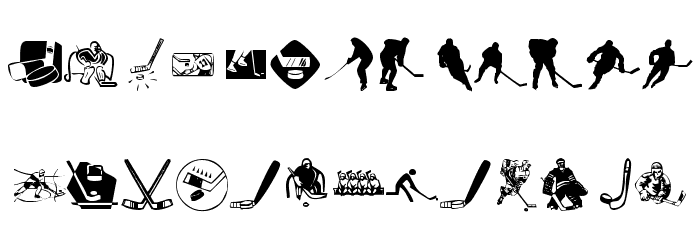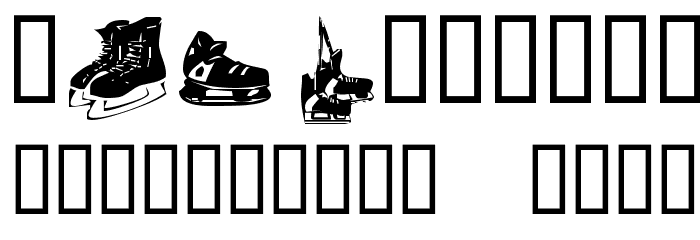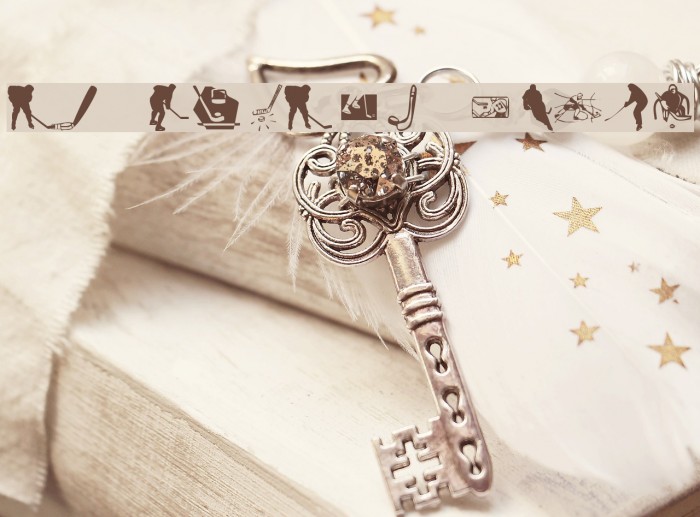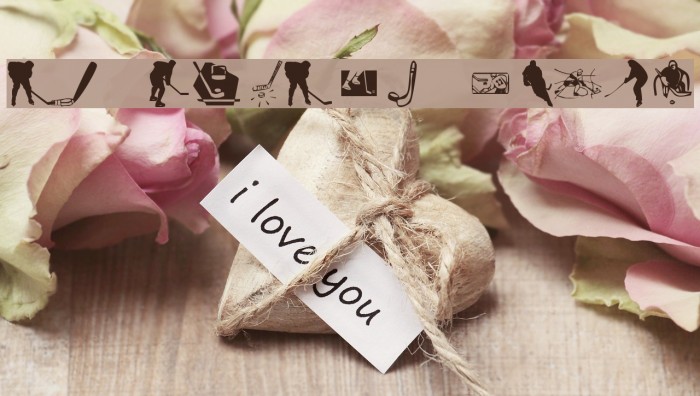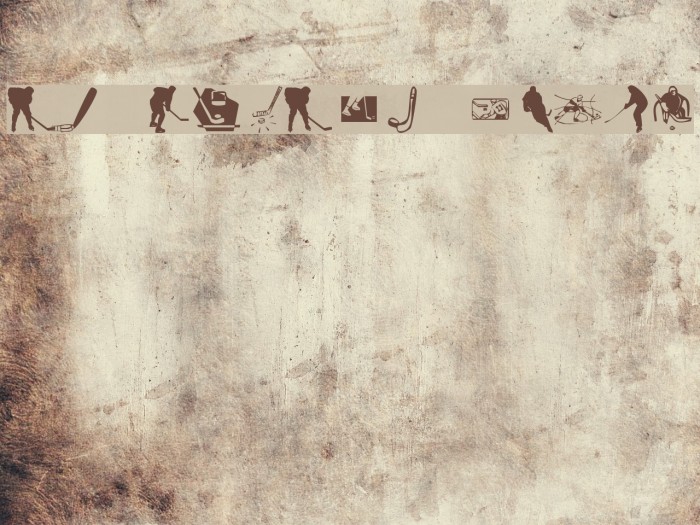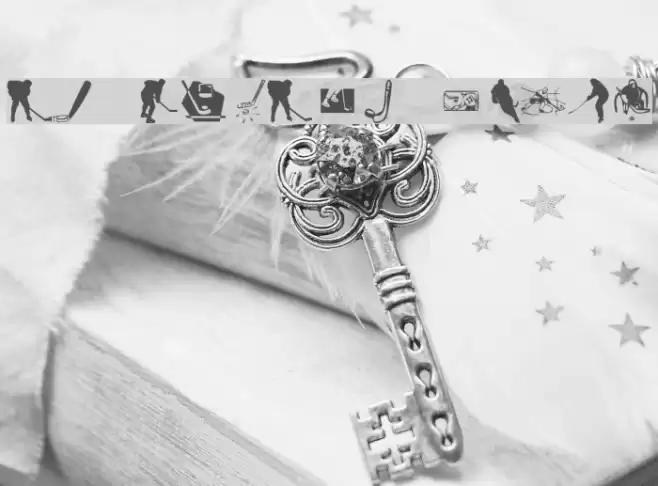
KR Hockey Dings Font
This is a decorative font featuring a series of hockey-themed icons and illustrations. Each character is represented by a unique hockey-related image, including players in various poses, hockey sticks, pucks, skates, and other equipment. The style is bold and graphic, with a strong emphasis on the dynamic and energetic nature of the sport. The images are detailed and capture the essence of hockey, making it ideal for sports-related designs. The font does not include traditional alphanumeric characters but instead focuses on thematic imagery.
A decorative font with hockey-themed icons and illustrations.
- Proposed Projects: Ideal for sports event posters, hockey team branding, merchandise design, and any project requiring a dynamic sports theme.
- Use Case: Logos, Posters, Merchandise